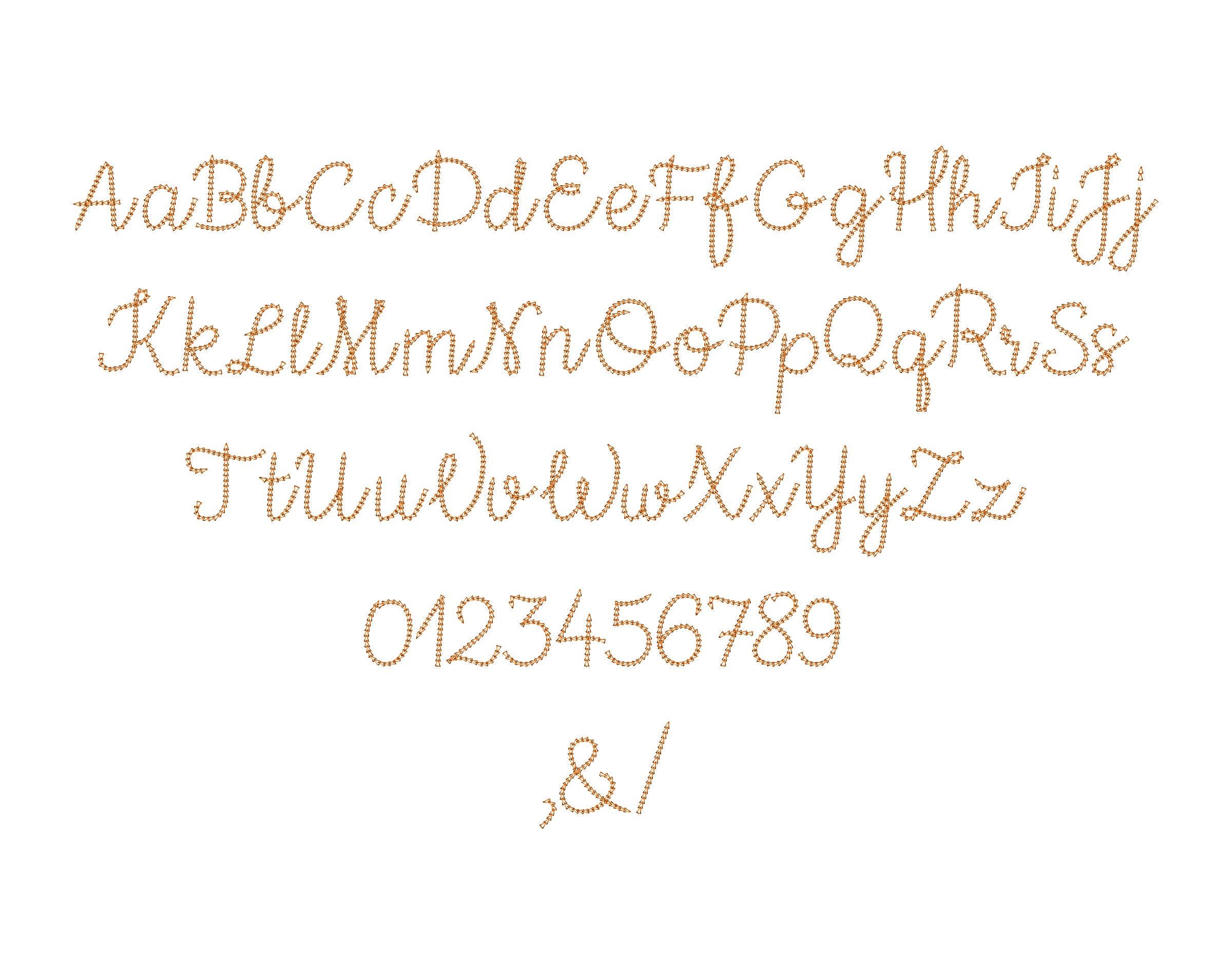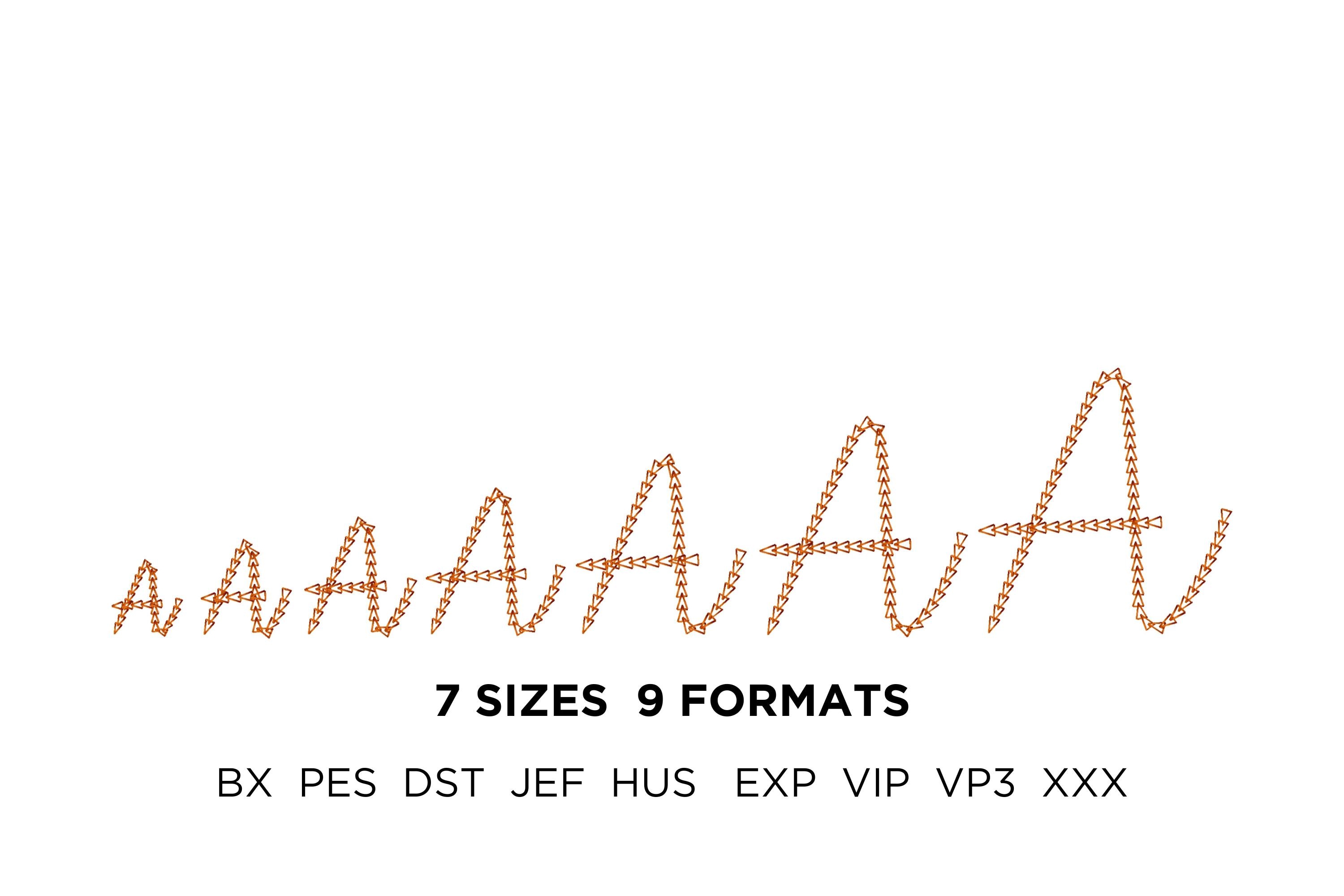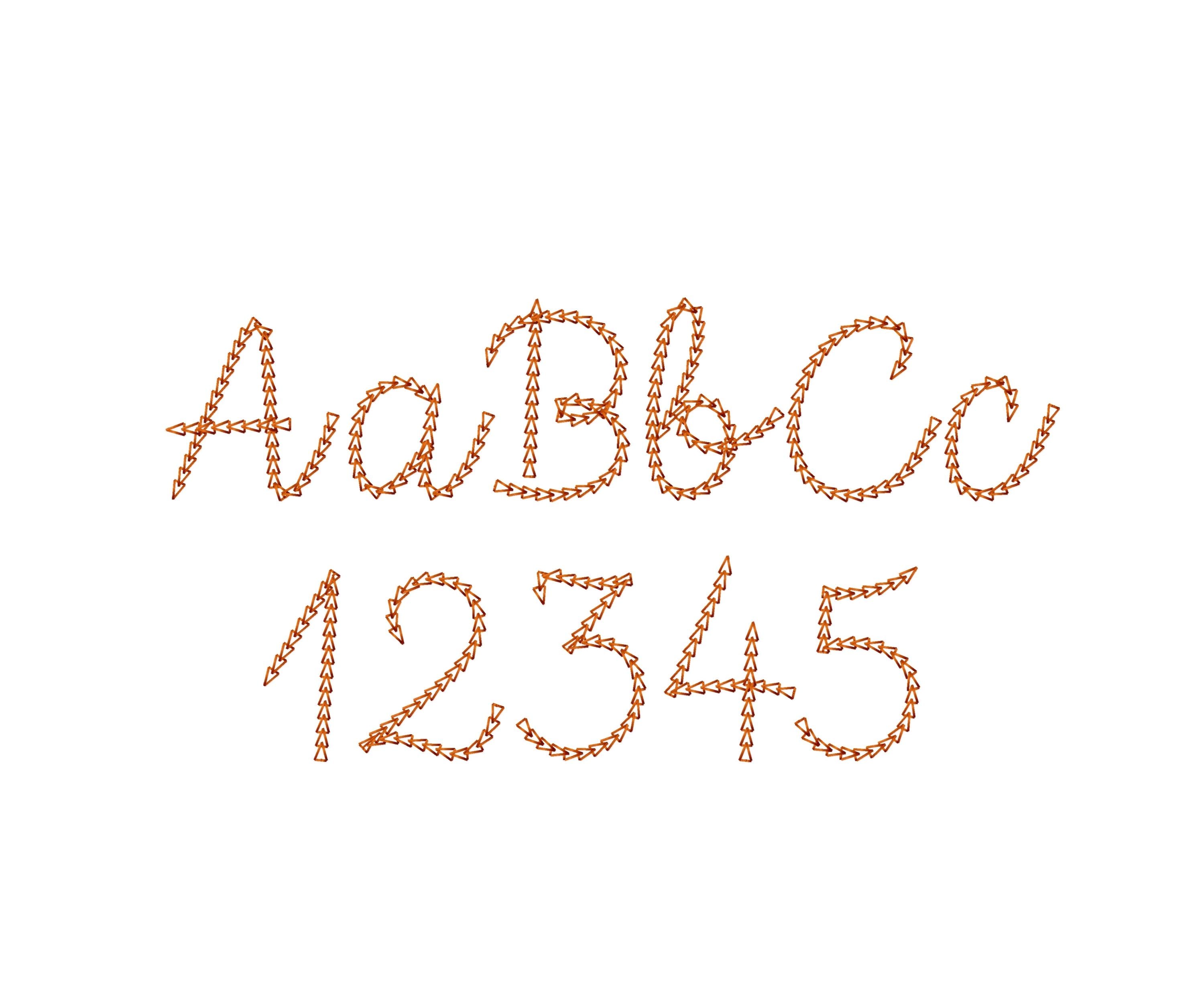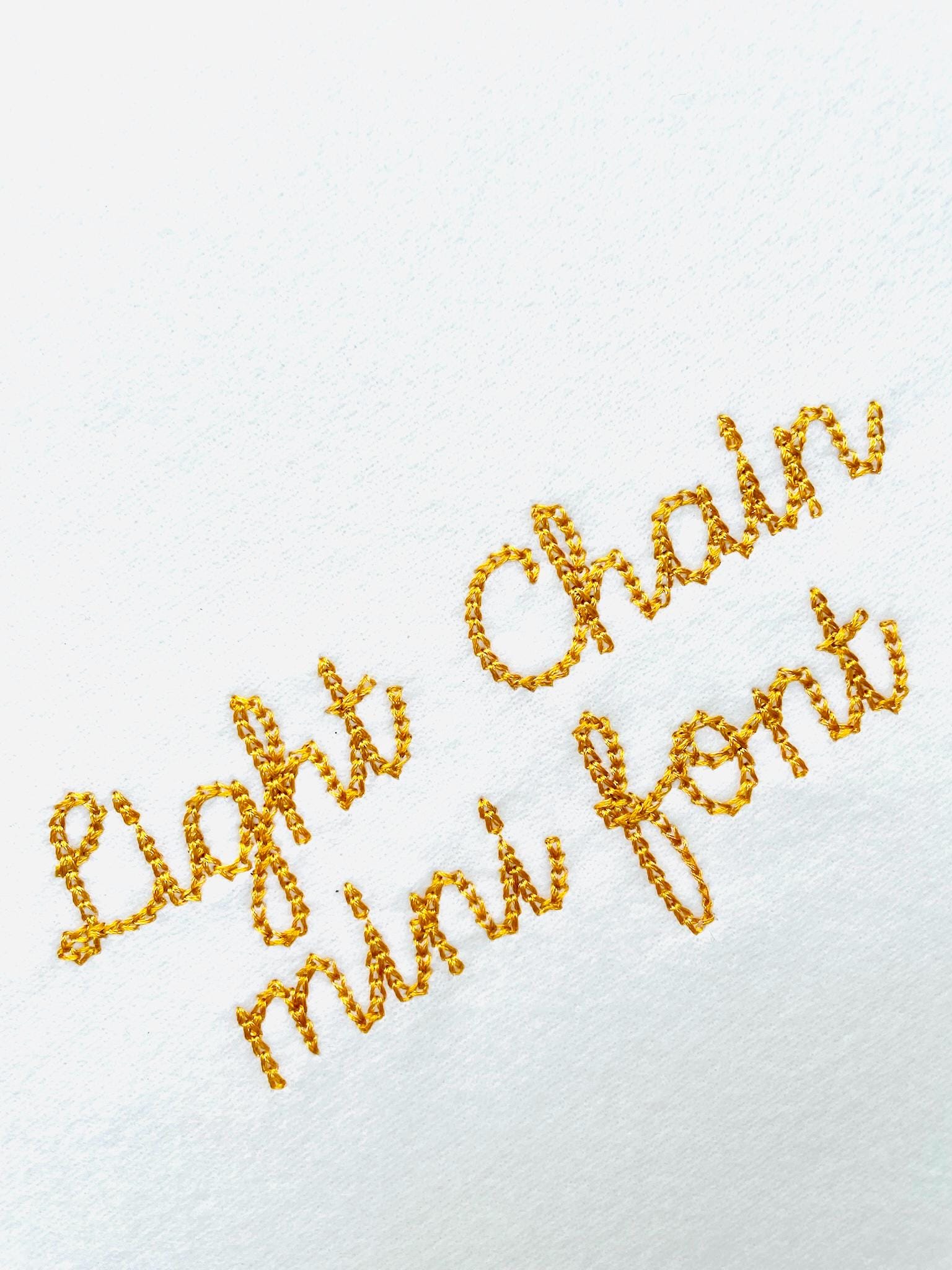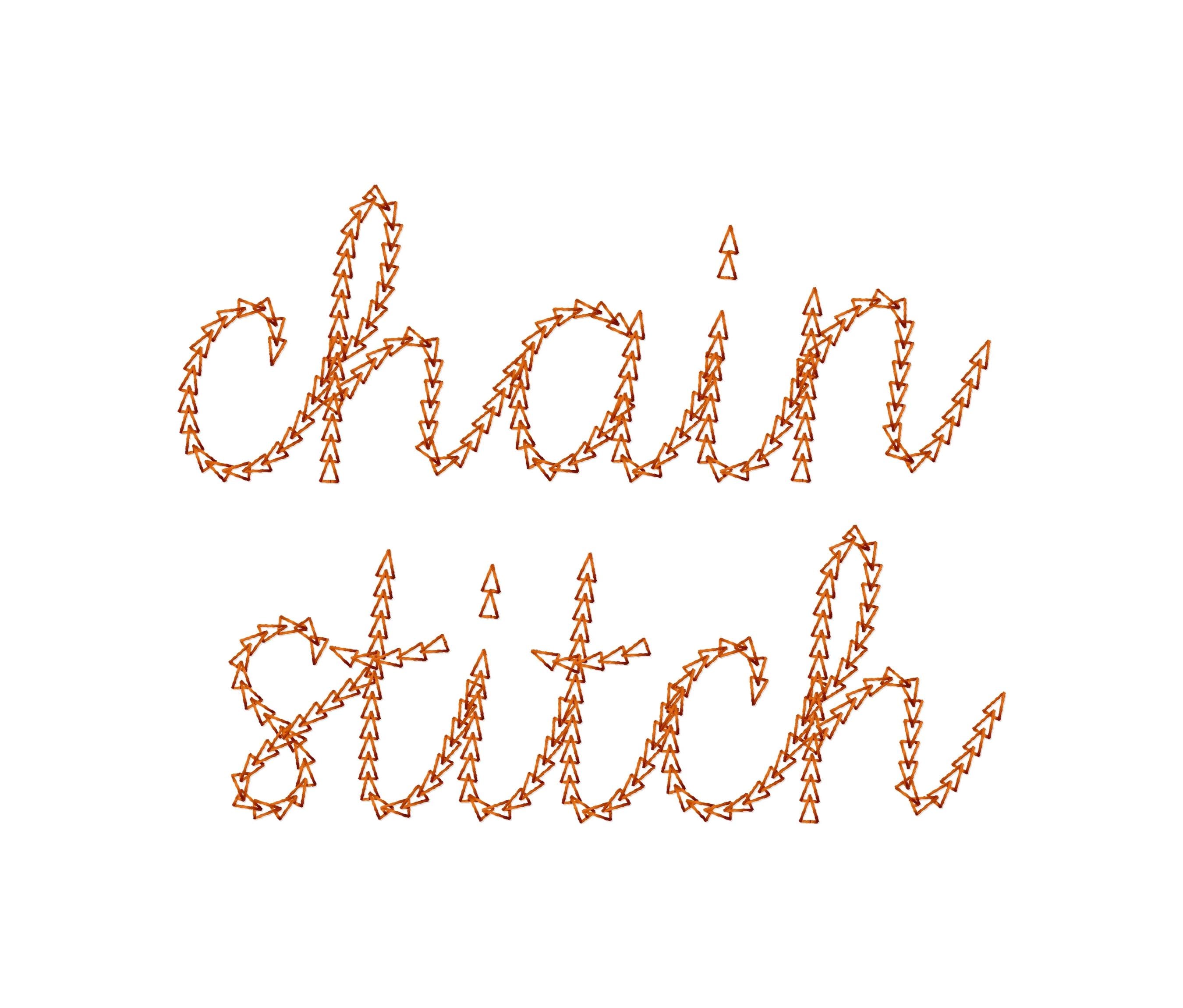
Quick light stitch Chain FONT machine embroidery designs handwritten script Font alphabet letters Monogram assorted sizes 1 up to 3.2 inch, and BX
Whole alphabet Aa-Zz uppercase and lowercase letters, numbers 0-9, and punctuation.